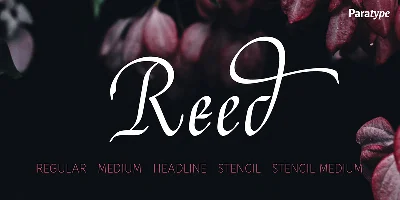
Reed Font
Reed Font is elegantly designed for sophisticated editorial layouts, refined magazine designs, premium book typography, cultured branding projects, upscale restaurant menus, artistic exhibition catalogs, literary publications, and distinguished corporate communications. This graceful typeface excels in environments requiring literary sophistication and editorial excellence, making it perfect for publishing houses, cultural institutions, luxury brands, and any organization needing to communicate intellectual refinement and artistic sensibility through distinguished typography.
What makes Reed Font so exciting is its masterful blend of contemporary design sensibilities with classical typographic principles that creates exceptional readability and sophisticated visual appeal for extended reading applications. The font features carefully balanced letterforms with subtle personality touches and refined proportions that honor traditional book typography while incorporating modern optimization for digital platforms. Its elegant construction and literary character make it incredibly effective for brands wanting to communicate intelligence, culture, and refined taste while ensuring comfortable reading experiences.
Reed Font typically includes multiple weights and styles such as Light, Regular, Medium, and Bold, often accompanied by matching Italic variations optimized for editorial use. The font family frequently features additional typographic refinements including small caps, old-style figures, and specialized punctuation marks essential for professional publishing applications. Each weight maintains the font's distinctive elegant character while offering different levels of visual hierarchy, providing designers with comprehensive tools for creating sophisticated editorial systems and refined communication materials.
Editorial professionals will discover that Reed Font delivers exceptional performance in both long-form reading and display applications requiring literary sophistication. The font's carefully crafted OpenType features include extensive character sets supporting multiple languages, professional typography elements, and specialized glyphs essential for quality publishing and cultural communications. Its refined construction makes it particularly effective for literary magazines, art books, cultural publications, and premium editorial designs requiring typographic excellence.
The meticulous attention to reading comfort and character spacing ensures that Reed Font maintains superior legibility across all text sizes while preserving its sophisticated aesthetic appeal. Its literary design language makes it exceptionally suitable for publishing companies, cultural organizations, academic institutions, and luxury brands requiring intellectual credibility. The font's refined presence creates strong editorial authority while remaining highly functional across different design contexts from traditional print to contemporary digital platforms.
For designers seeking a typeface that embodies editorial sophistication with literary excellence, Reed Font represents an outstanding choice that will elevate any project with its distinctive refinement and cultural sophistication.